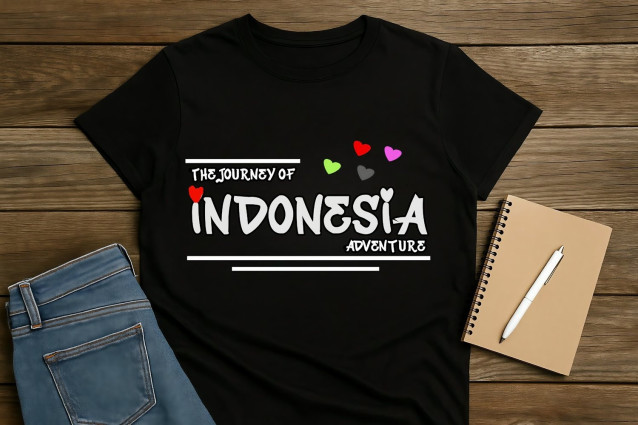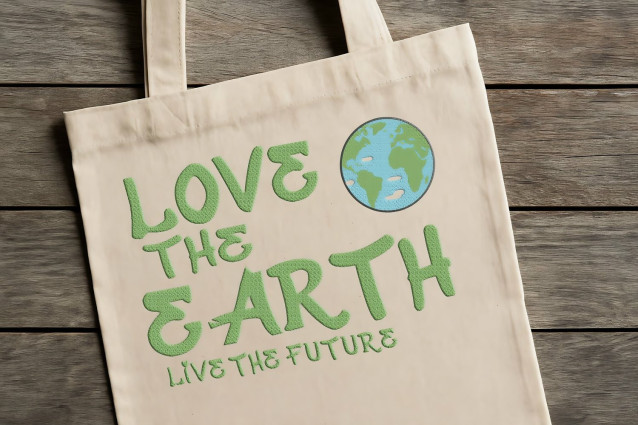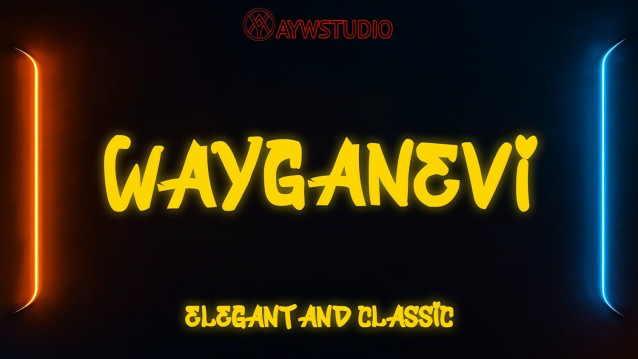
WayGanevi Display Font
WayGanevi Display Font is a handcrafted display font that combines bold strokes with a classic, retro-inspired feel. Designed with a touch of playfulness and uniqueness, it adds personality and charm to any creative work.
WayGanevi is inspired by the fusion of modern graffiti styles and classic typography, blending bold strokes with an elegant flair. This font reflects a timeless aesthetic that works well for both traditional and contemporary creative needs.